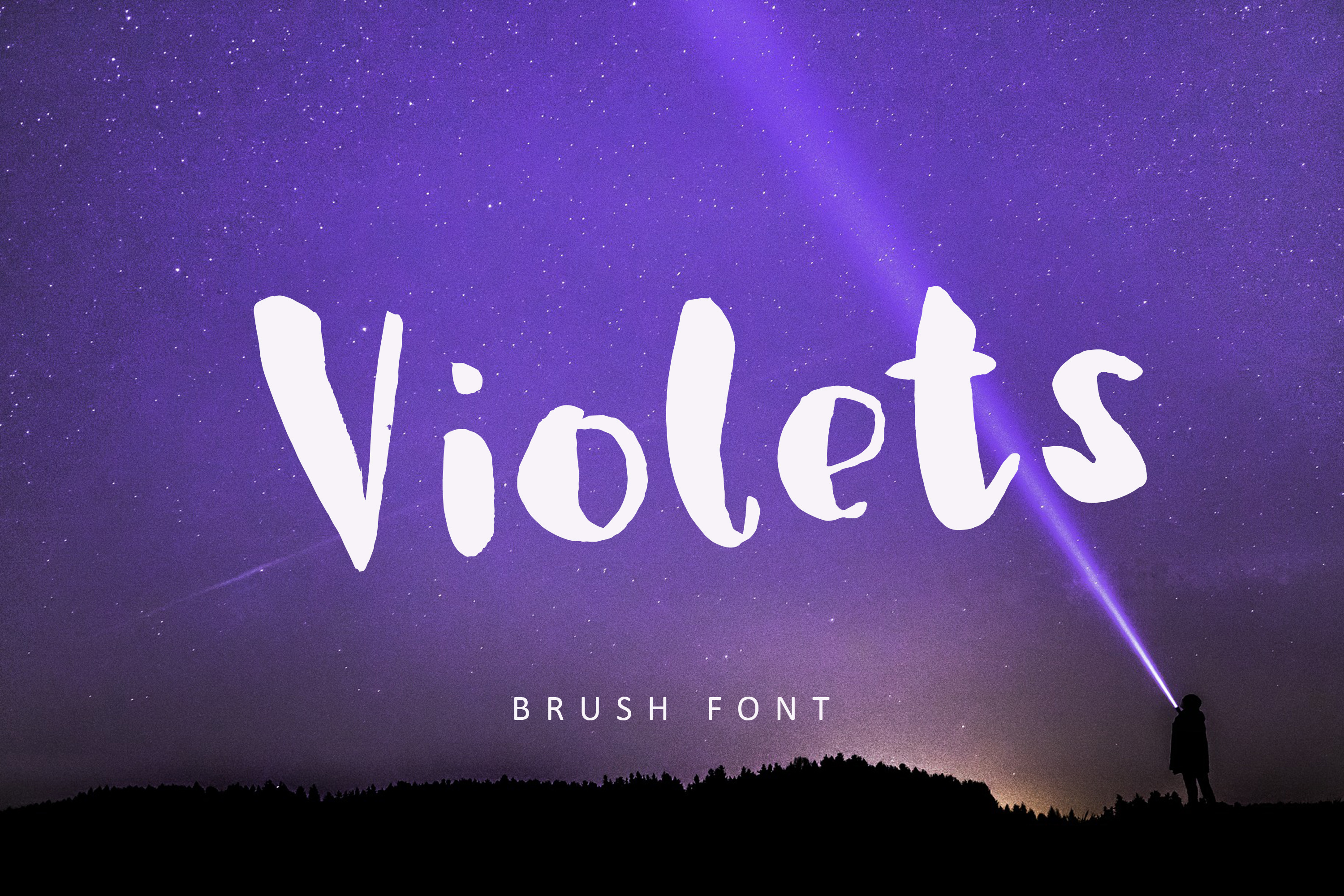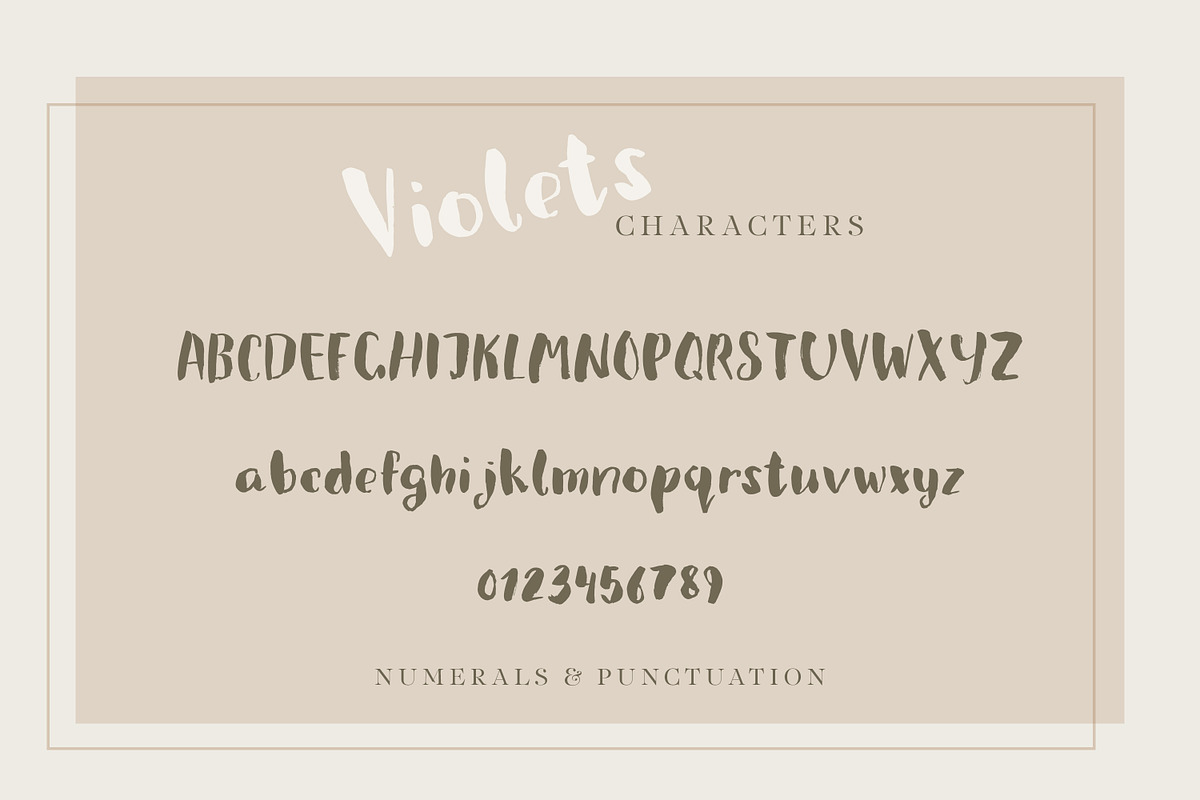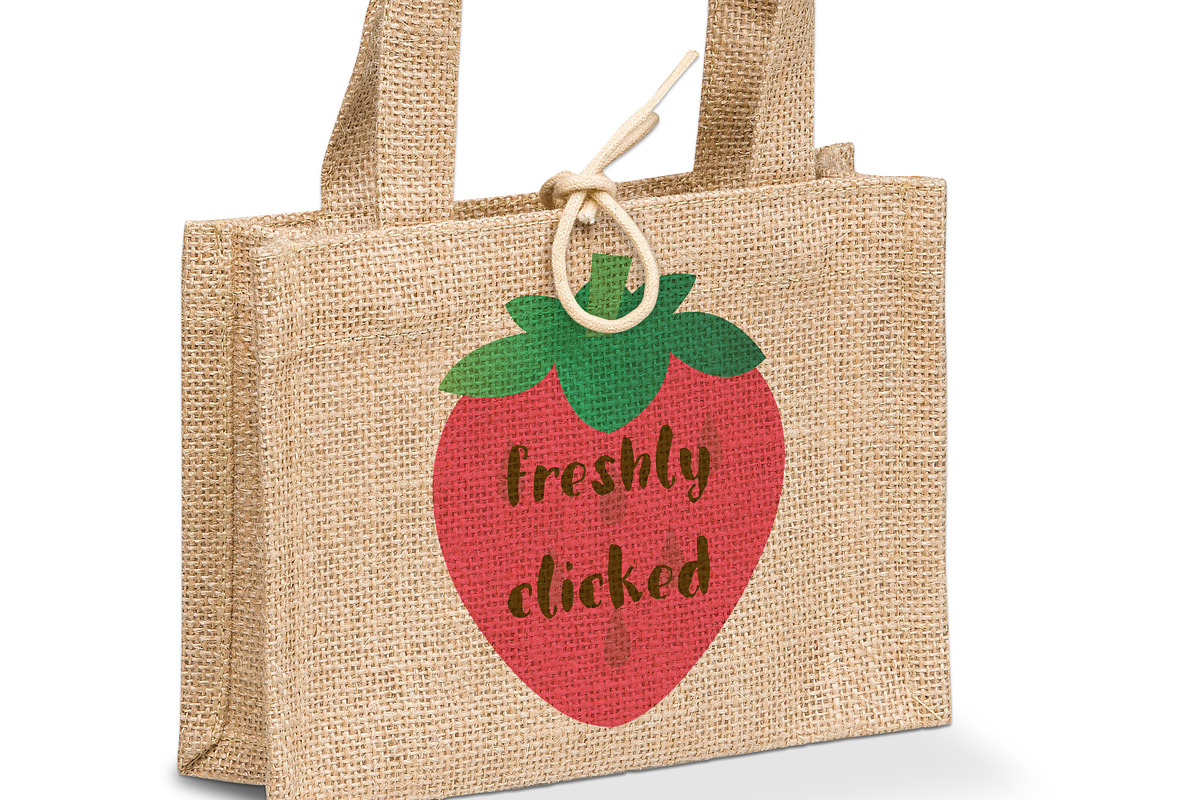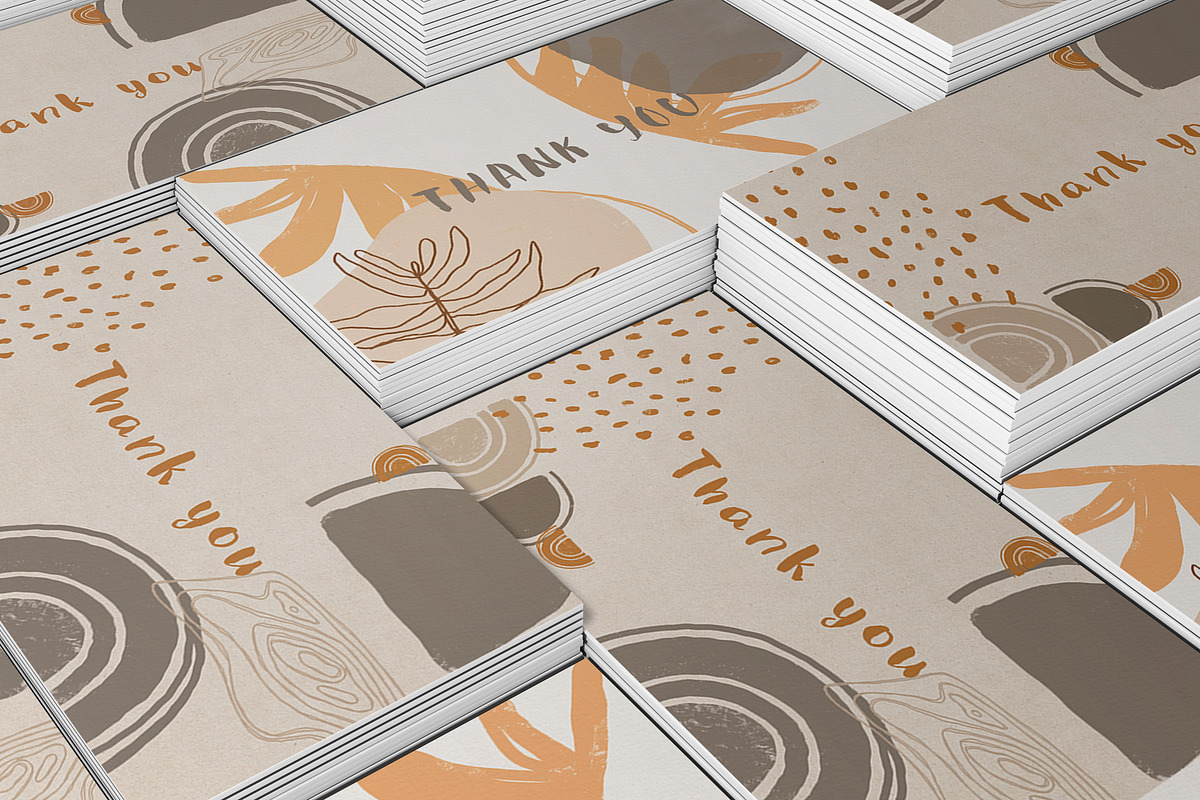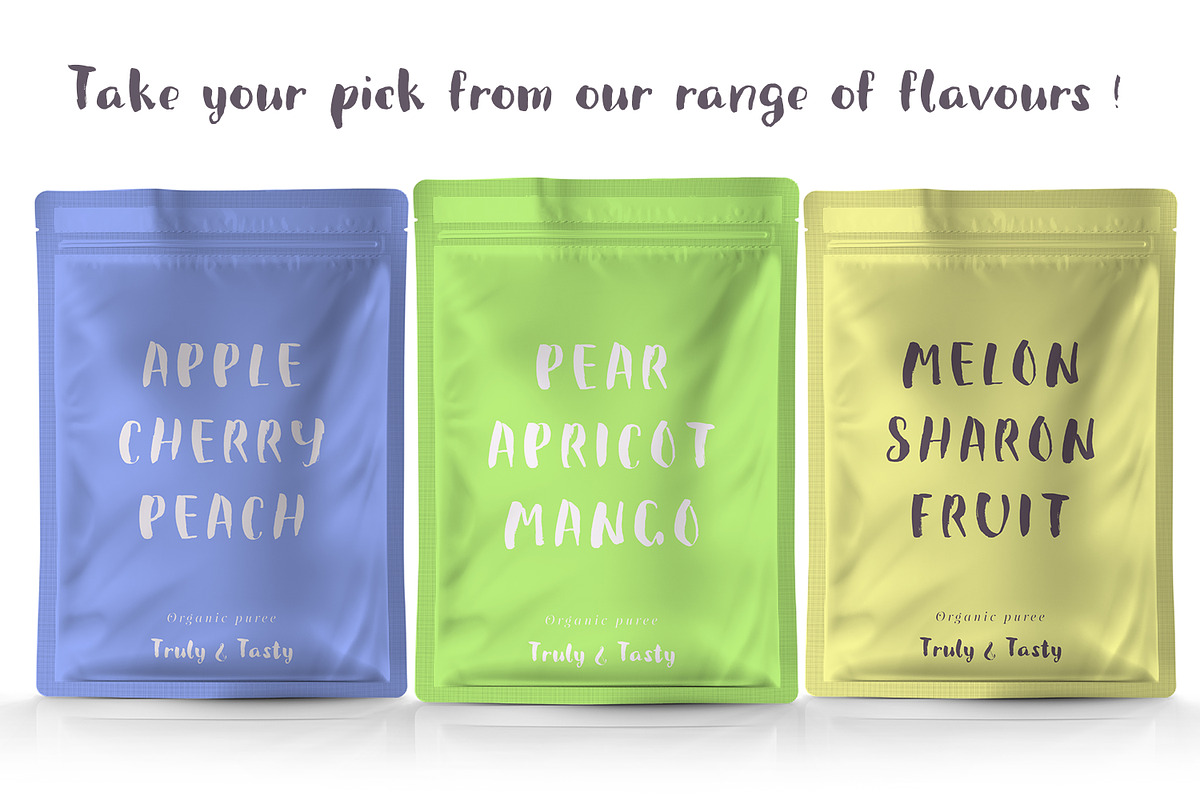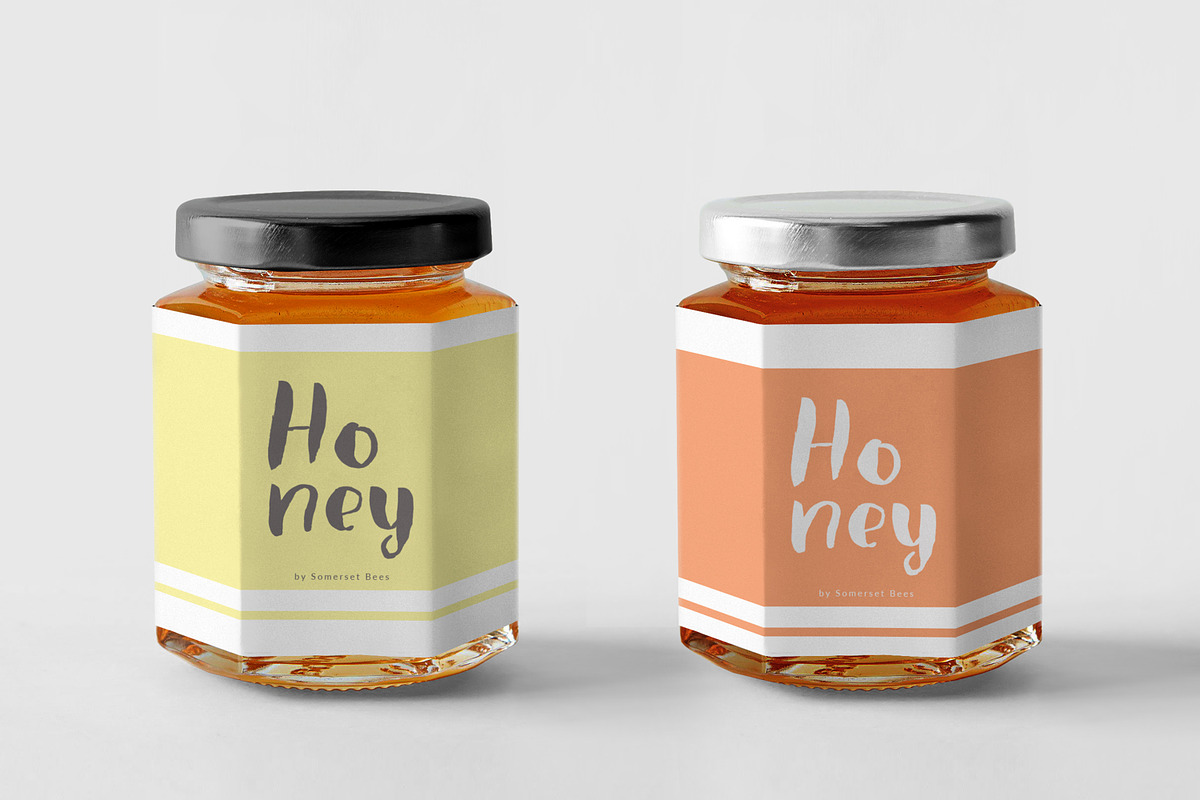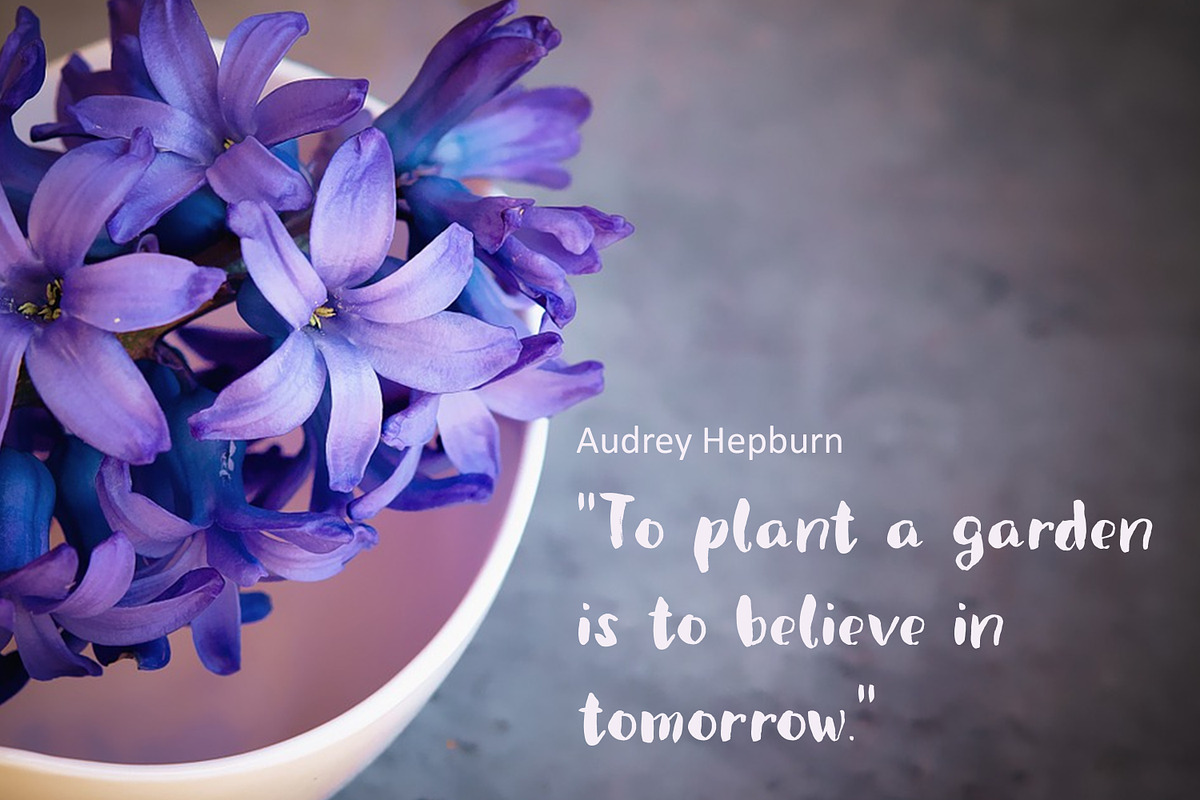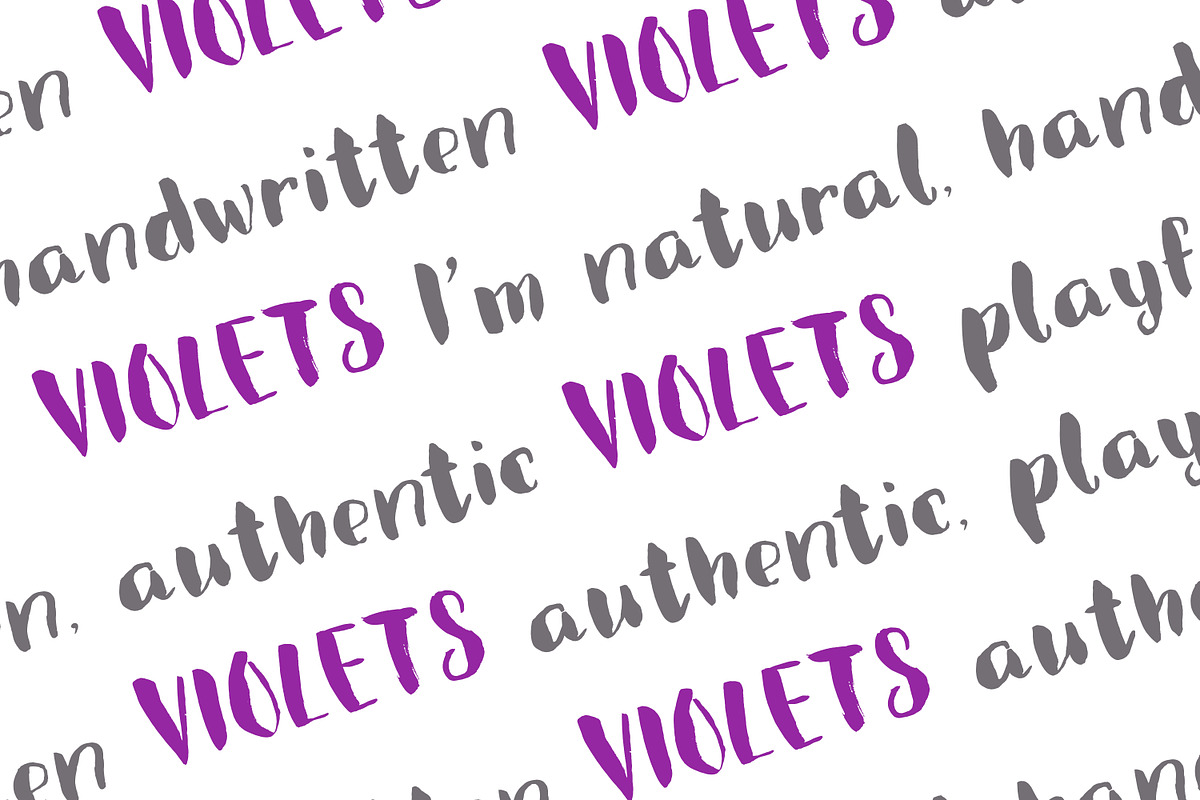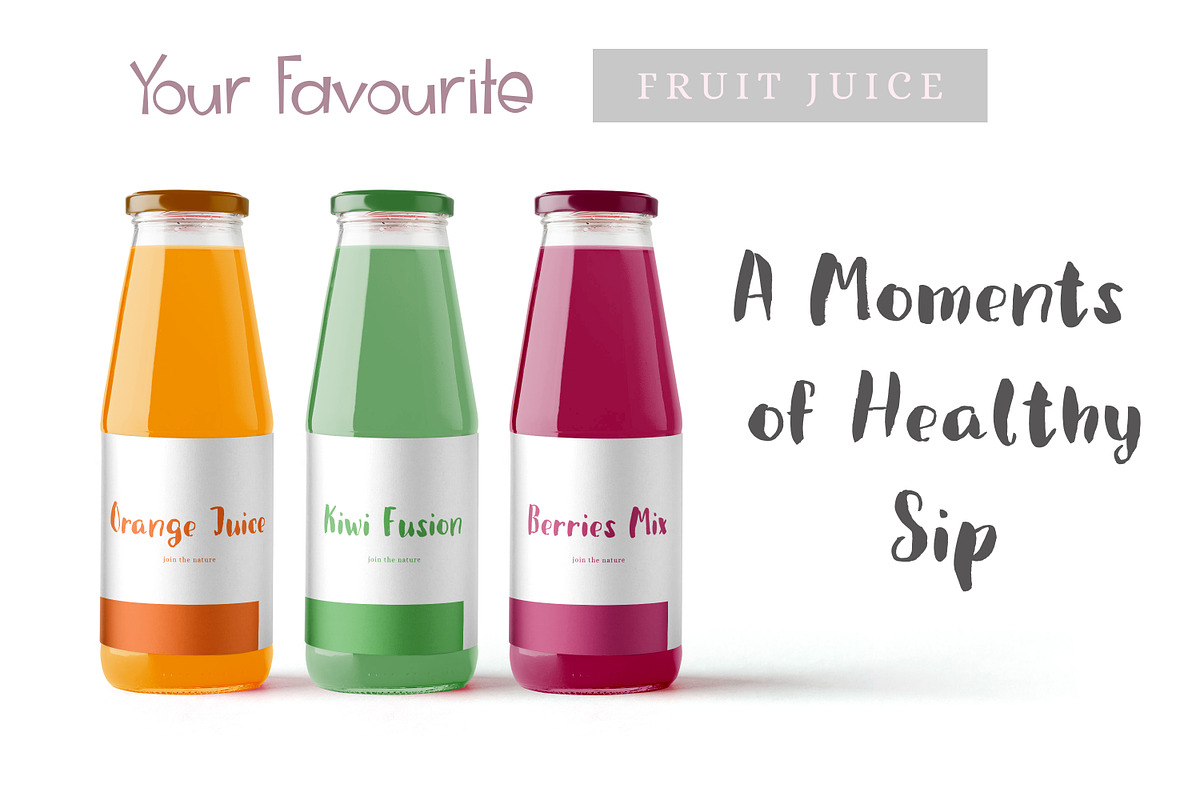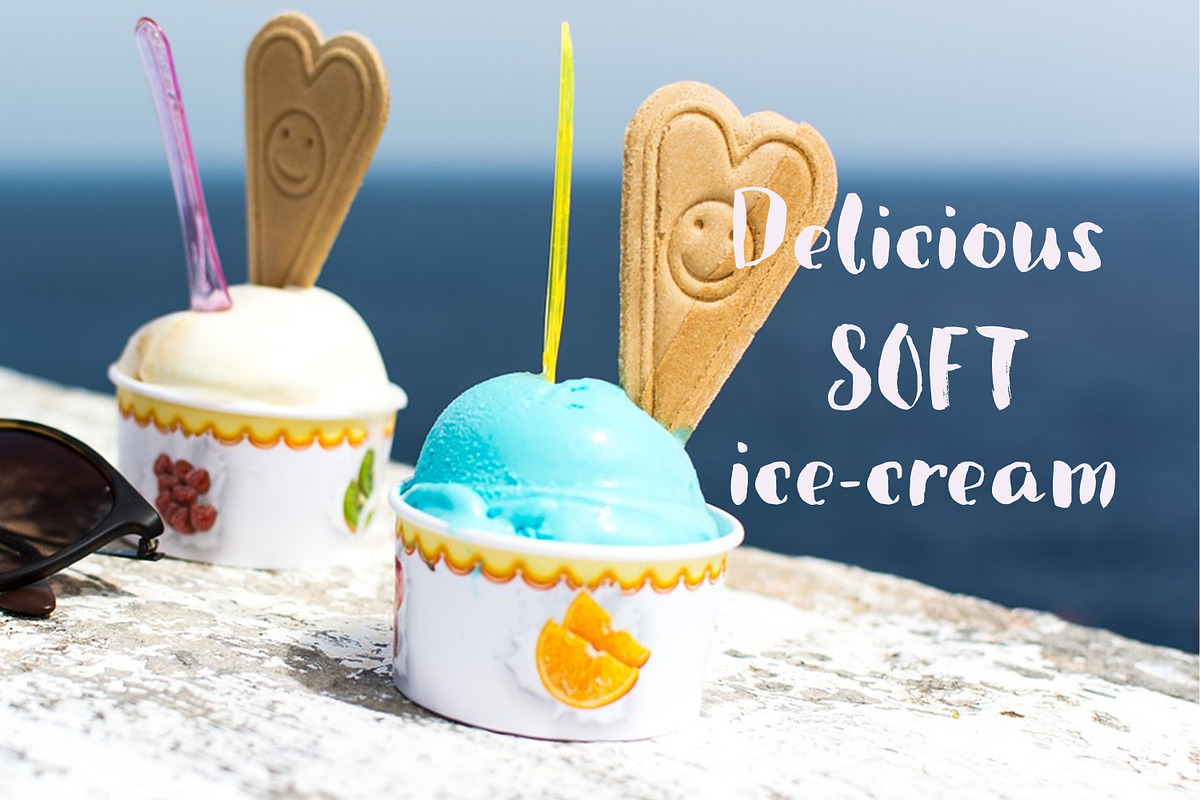
Violets | thick brush font
Violets is a cute handwritten brush font designed initially for using in a packaging design.
Quirky and casual it is actually very versatile, and can be used in a variety of project styles - children book design, invitations, quotes, headings, blogs, logos and more, where a hand written type is needed. Features numbers, signs, punctuation, multilingual glyphs.